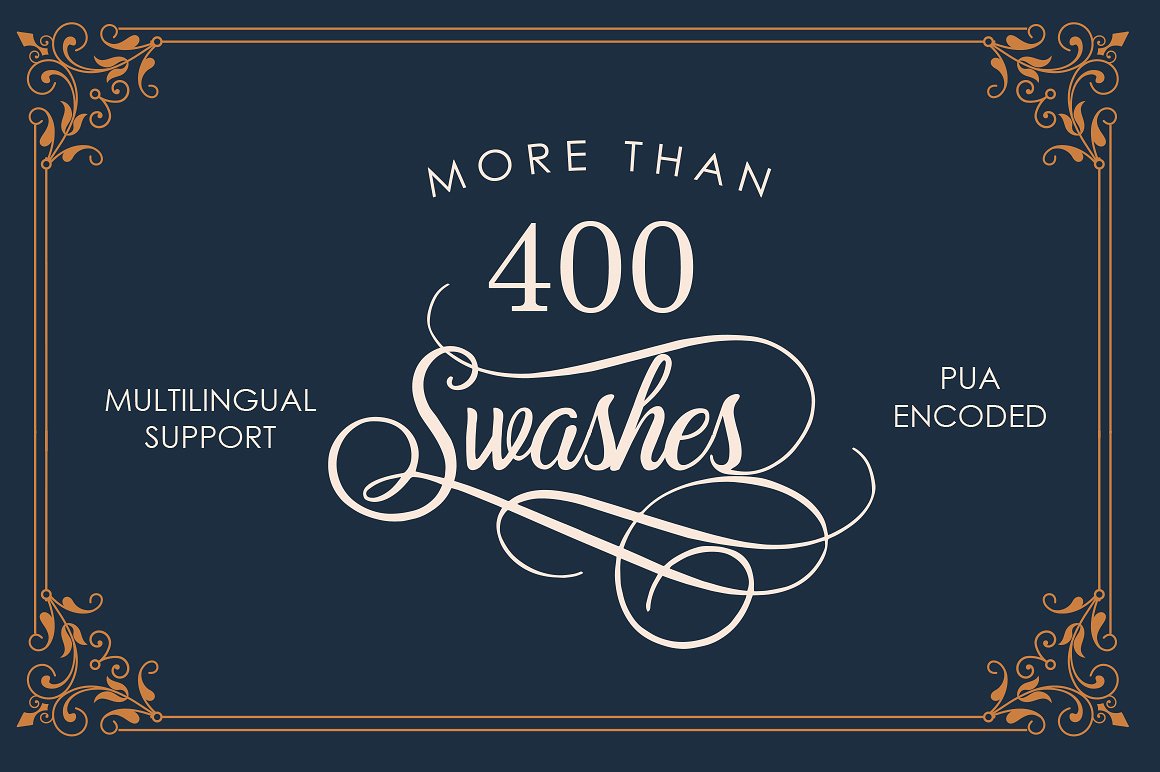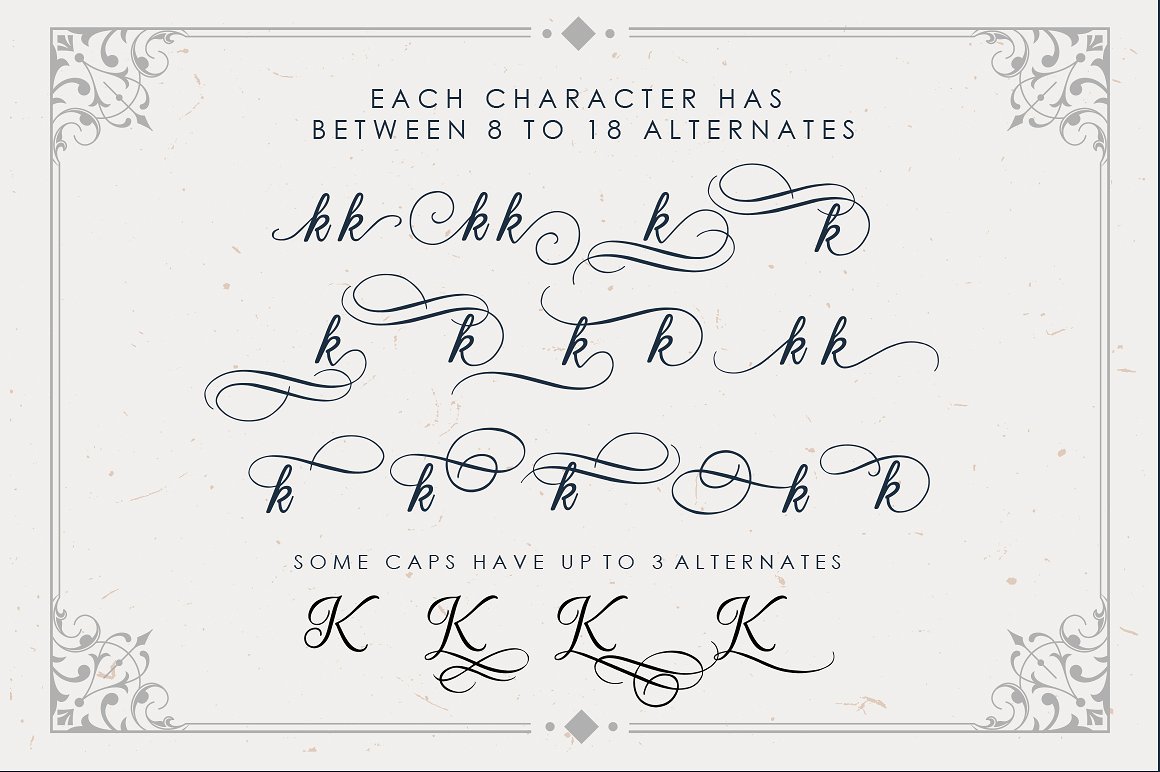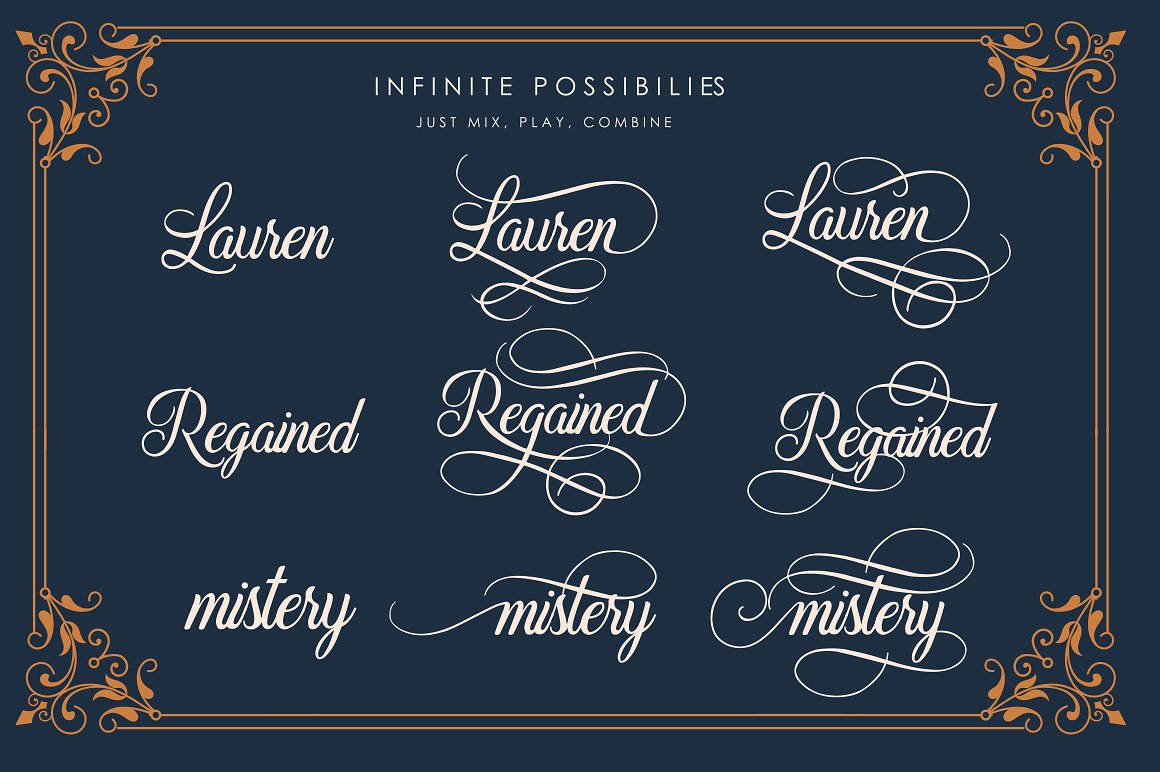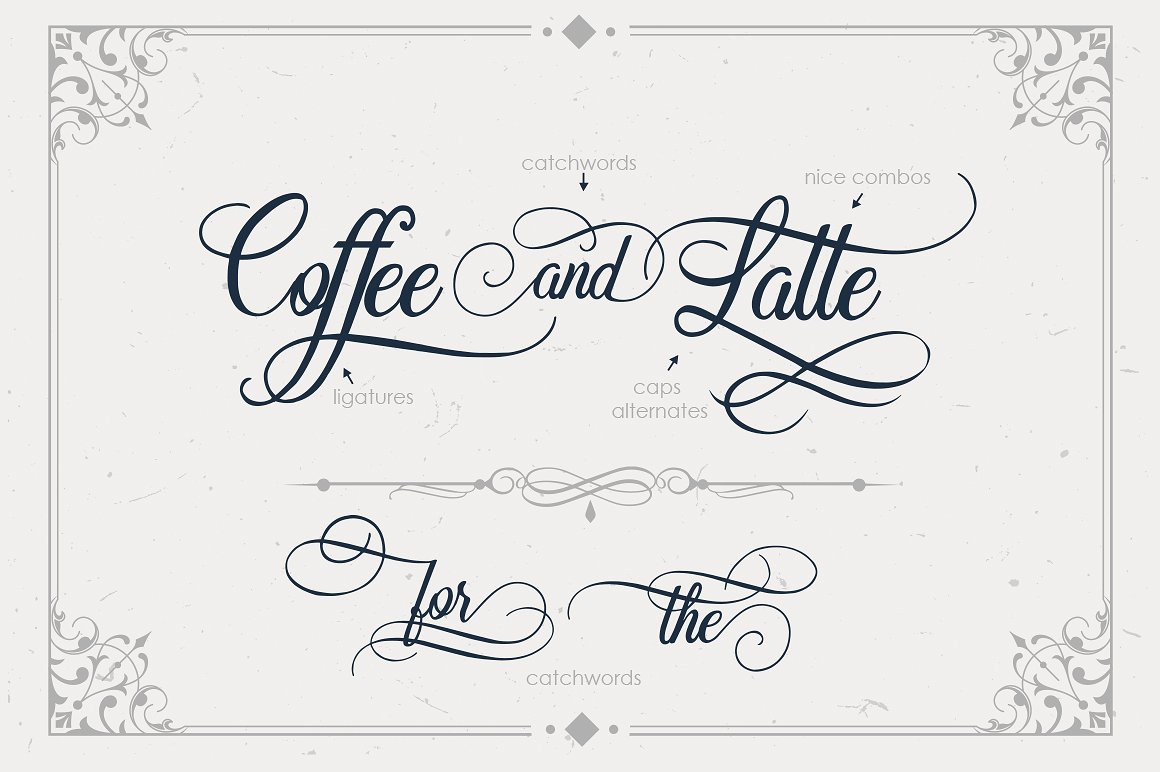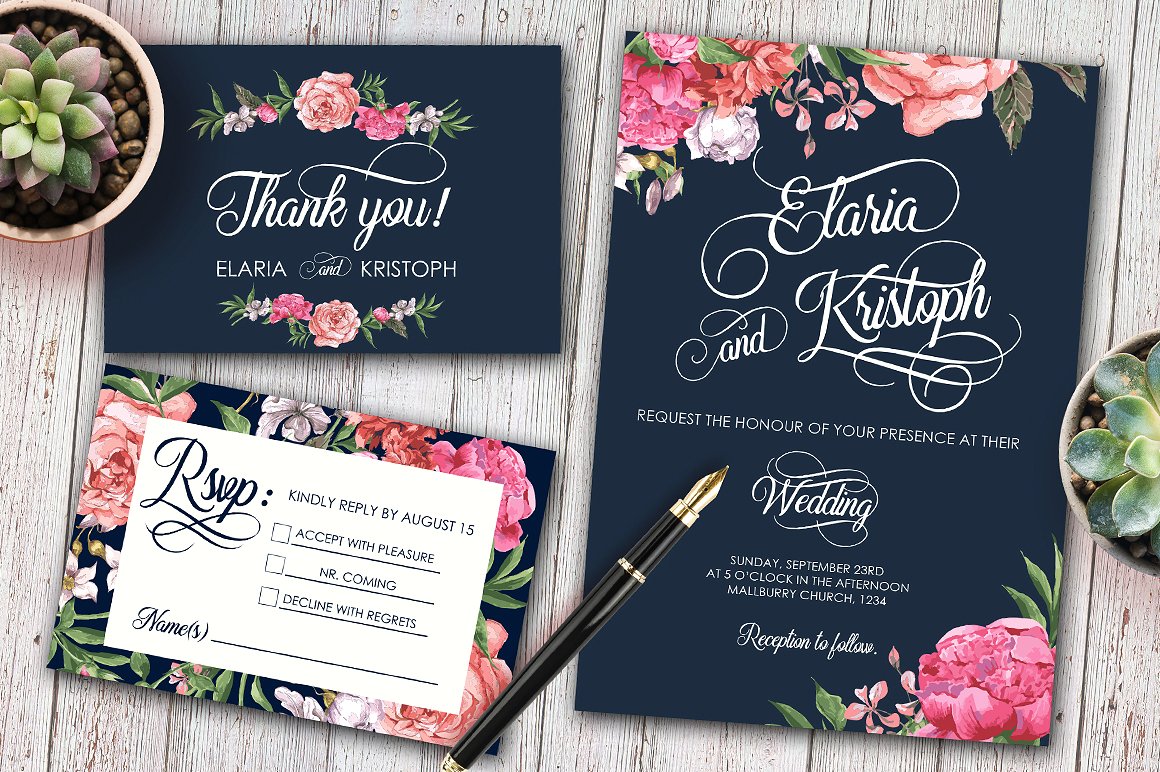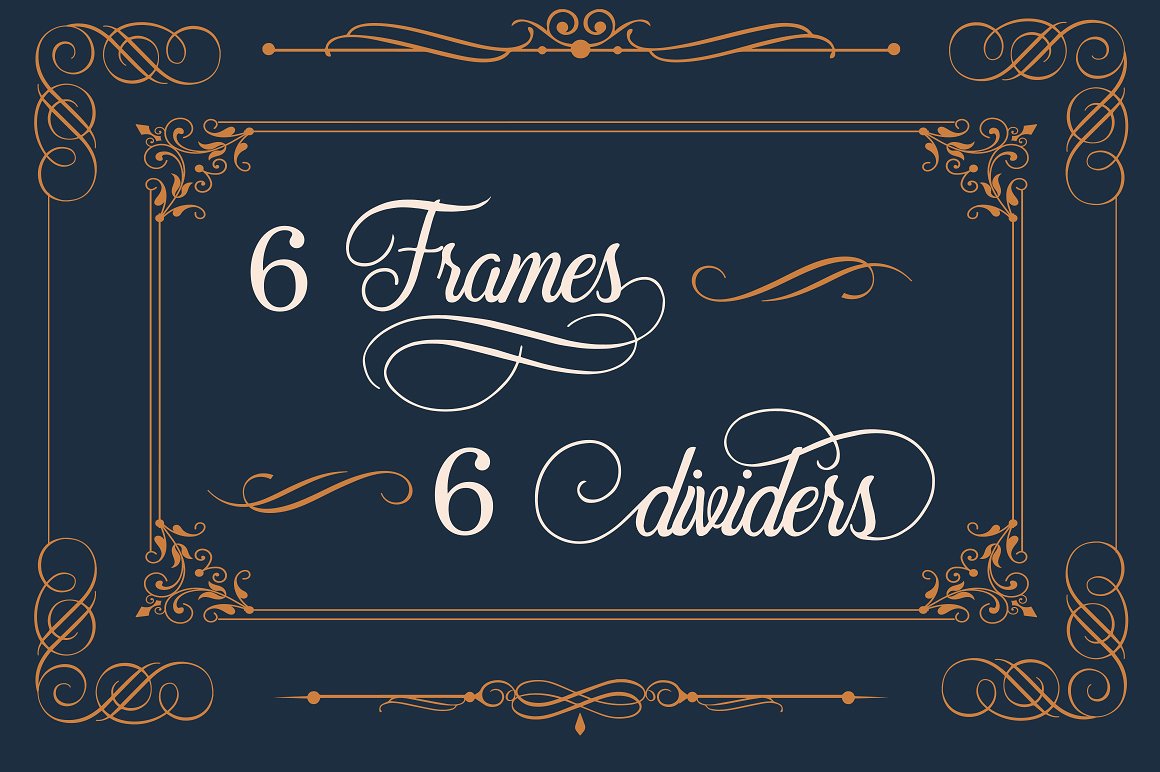
Unlock the Secrets of Elegant Typography with the Beradon Font
Imagine you’re working on a high-end wedding invitation, and you want the perfect font to capture the essence of the special day. You scroll through your font library, and suddenly, you stumble upon a script that takes your breath away. This is exactly what happens when you discover the Beradon Script, an elegant and versatile font created by BlackCatsMedia.
This stunning font boasts over 400 alternatives, ensuring that you’ll find the perfect fit for any project. Plus, it comes with a bonus font containing beautiful frames and dividers, giving you the tools you need to complete your design. Whether you’re a seasoned designer or a creative enthusiast, the Beradon Font is an invaluable addition to your toolkit.
- Unique Characteristics: Features a unique blend of modern and vintage elements, with intricate details and ornaments
Designer Review: Beradon Font
As a designer, I was excited to dive into the Beradon Font and see what it had to offer. Overall, I’d say it’s a solid addition to any designer’s toolkit, but with some limitations to consider.
- Unique, modern aesthetic that’s perfect for branding and creative projects.
- Wide range of weights and styles to suit various design needs.
- Legible at a variety of sizes, making it suitable for both print and digital applications.
- Supports multiple languages, which is a huge plus for global projects.
- Some of the lighter weights can appear a bit thin and may not hold up in small text sizes.
- Lack of italics and bold italics, which can limit its use in certain design contexts.
- Not as versatile as some other fonts in terms of pairing with other typography.
Overall, I think the Beradon Font is a great choice for designers looking for a modern, stylish font. While it may not be perfect, it’s definitely worth considering for your next project. Just be mindful of its limitations and adjust your design accordingly.
Tips for Getting the Most Out of Beradon Font
To get the most out of Beradon font, try using it for:
- Titles and headings
- Emphasizing key messages or calls-to-action
- Creating a unique and modern design aesthetic
Beradon font is commonly used for:
- Graphic design projects
Alternatives to Beradon Font for Designers
Monserrat is a sans-serif font designed by Julieta Ulanovsky. It is known for its geometric and urban feel, making it perfect for modern and minimalist designs. Montserrat is a great alternative to Beradon Font for designs that require a clean and sophisticated look.
Montserrat is more geometric and has a more structured feel compared to Beradon Font, which has a more organic and playful feel. Montserrat is ideal for use in headings, titles, and body text in digital and print designs.
Open Sans is a modern sans-serif font designed by Steve Matteson. It is highly legible and versatile, making it suitable for a wide range of designs. Open Sans is a great alternative to Beradon Font for designs that require a friendly and approachable look.
Open Sans is more neutral and has a softer feel compared to Beradon Font, which has a more distinctive and playful feel. Open Sans is ideal for use in body text, headings, and titles in digital and print designs.
Lato is a sans-serif font designed by Łukasz Dziedzic. It is known for its clean and elegant feel, making it perfect for designs that require a sophisticated and modern look. Lato is a great alternative to Beradon Font for designs that require a more refined and polished look.